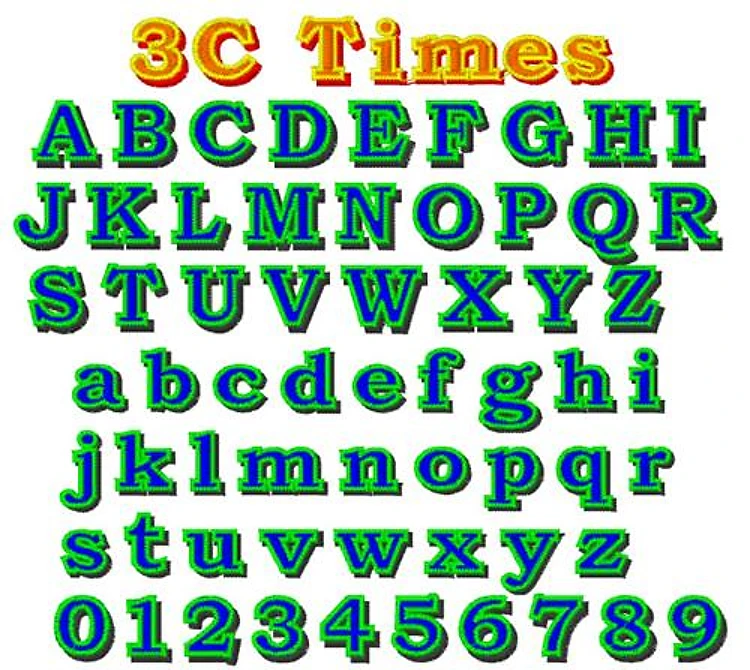
Internet Stitch is happy to present 3C Times machine embroidery font which has Bold and vibrant machine embroidery font with a layered appearance, perfect for eye-catching designs on jackets and banners. Available in ELP formats. included. If you would like to view more embroidery fonts and alphabets please search our embroidery fonts page.